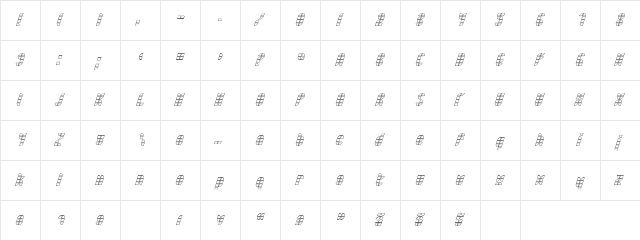
Bath NormalItalicOutline
Bath brings ornamental detail and strong personality to headlines and identities, where visual impact matters more than quiet functionality. The slanted form adds forward momentum and visual energy.
Font Pairing: Pair with a clean neutral sans-serif for body copy to let Bath's character lead without overwhelming the composition.
Pro Tip: Treat Bath as the centrepiece of your typographic hierarchy. One strong heading set in a decorative face can carry an entire layout.